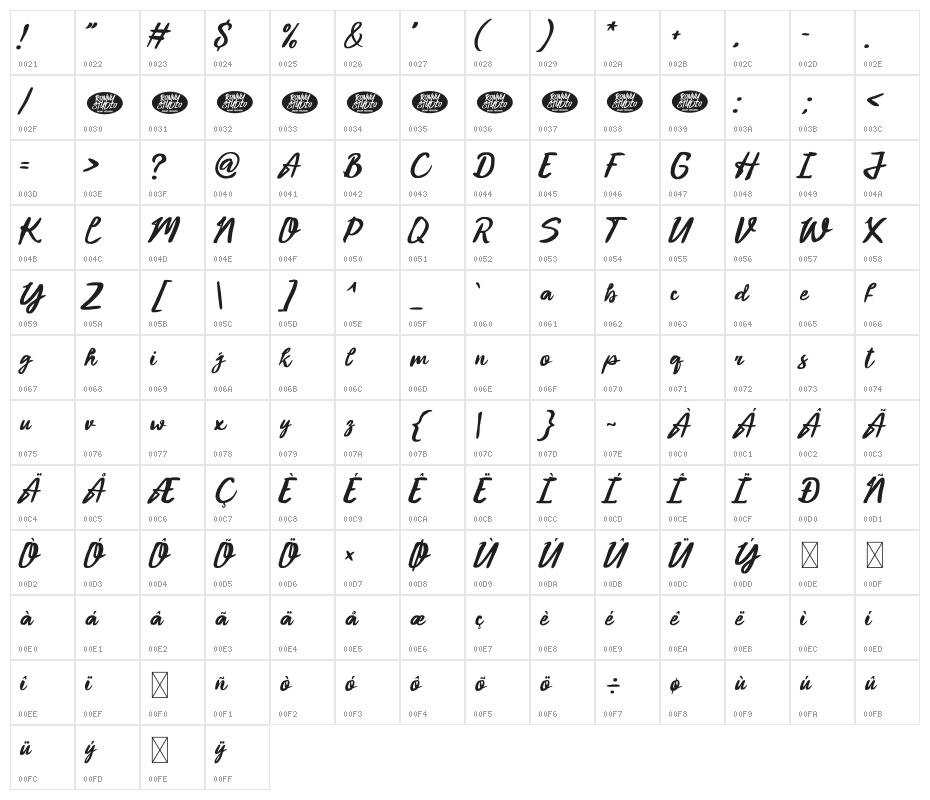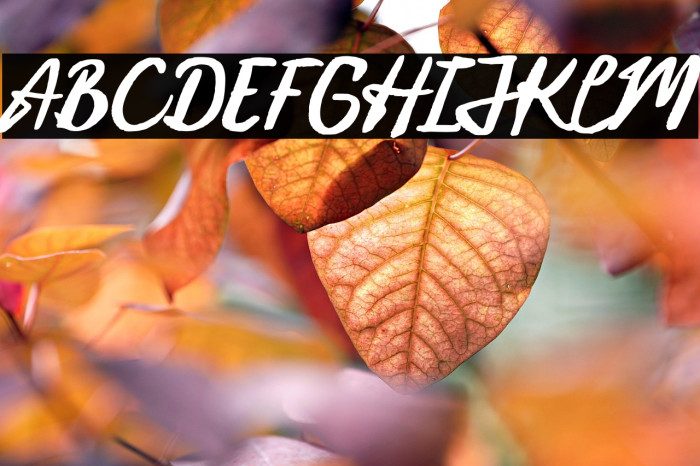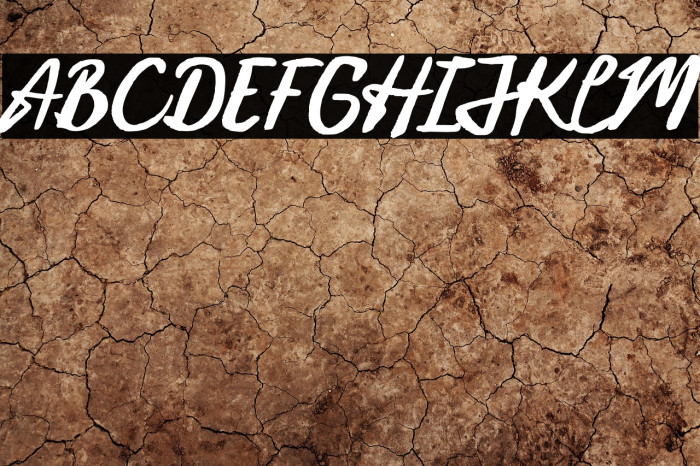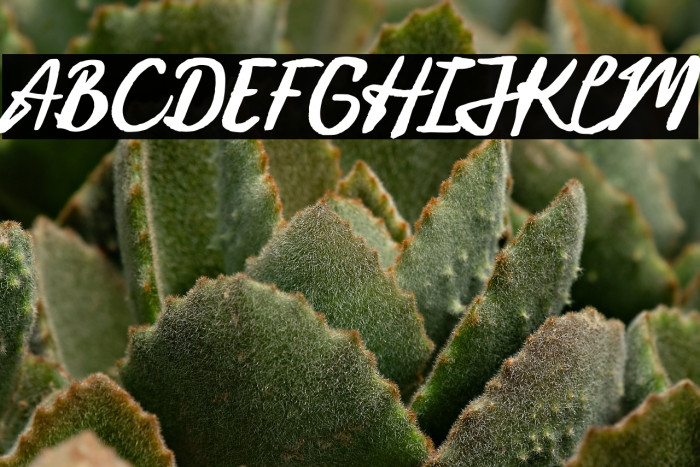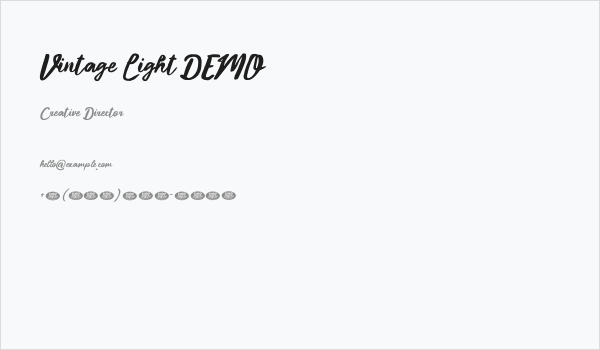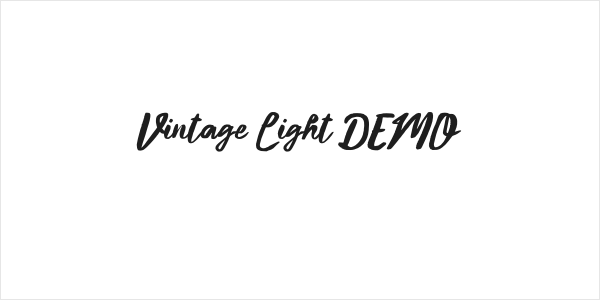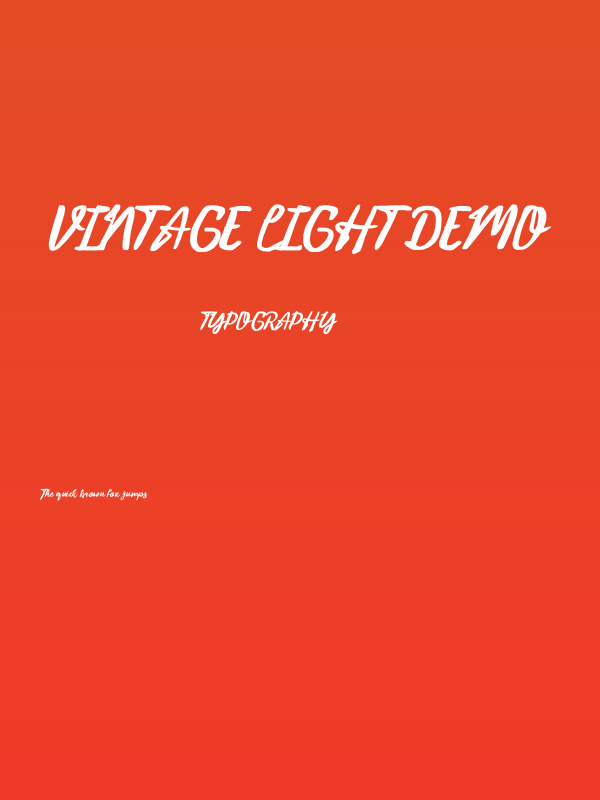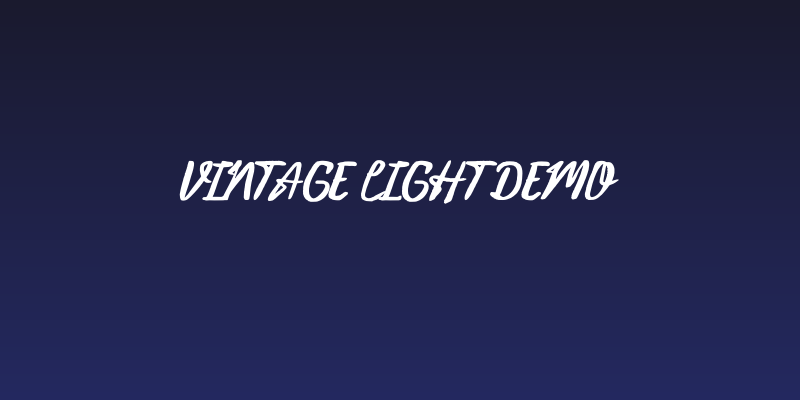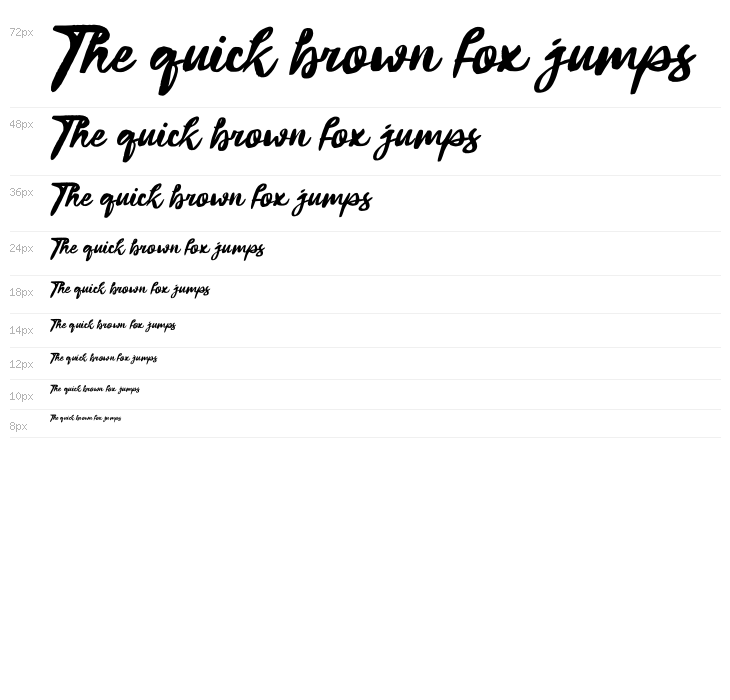
Vintage Light DEMO Font
Vintage Light DEMO Description
A bold, cursive script font with a vintage flair, featuring smooth, flowing strokes and a handwritten appearance.
| Use Case | Logos, Headlines |
| Proposed Projects | Logos, branding, invitations, posters. |